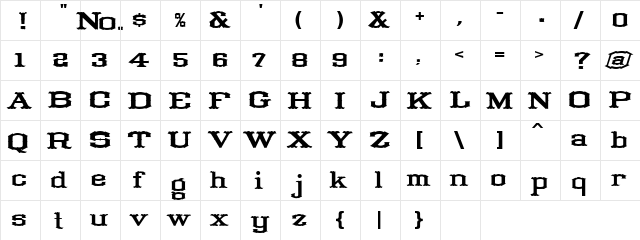
LHF Tuscan Full Block | ATK Regular
Design Context for LHF Tuscan Full Block | ATK Typeface
LHF Tuscan Full Block | ATK takes a measured approach to typography — its balanced proportions and neutral character make it a reliable workhorse for both digital and print work.